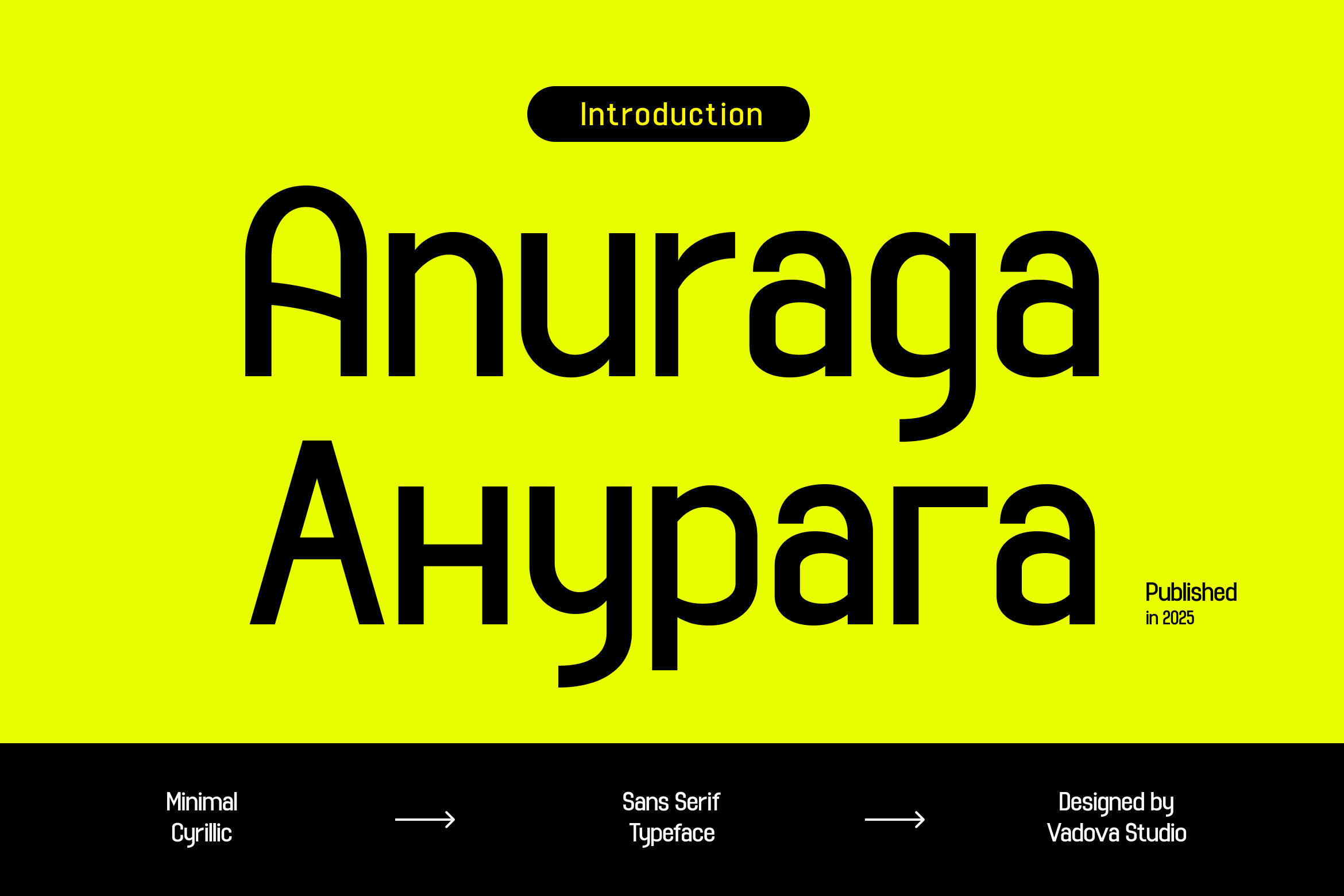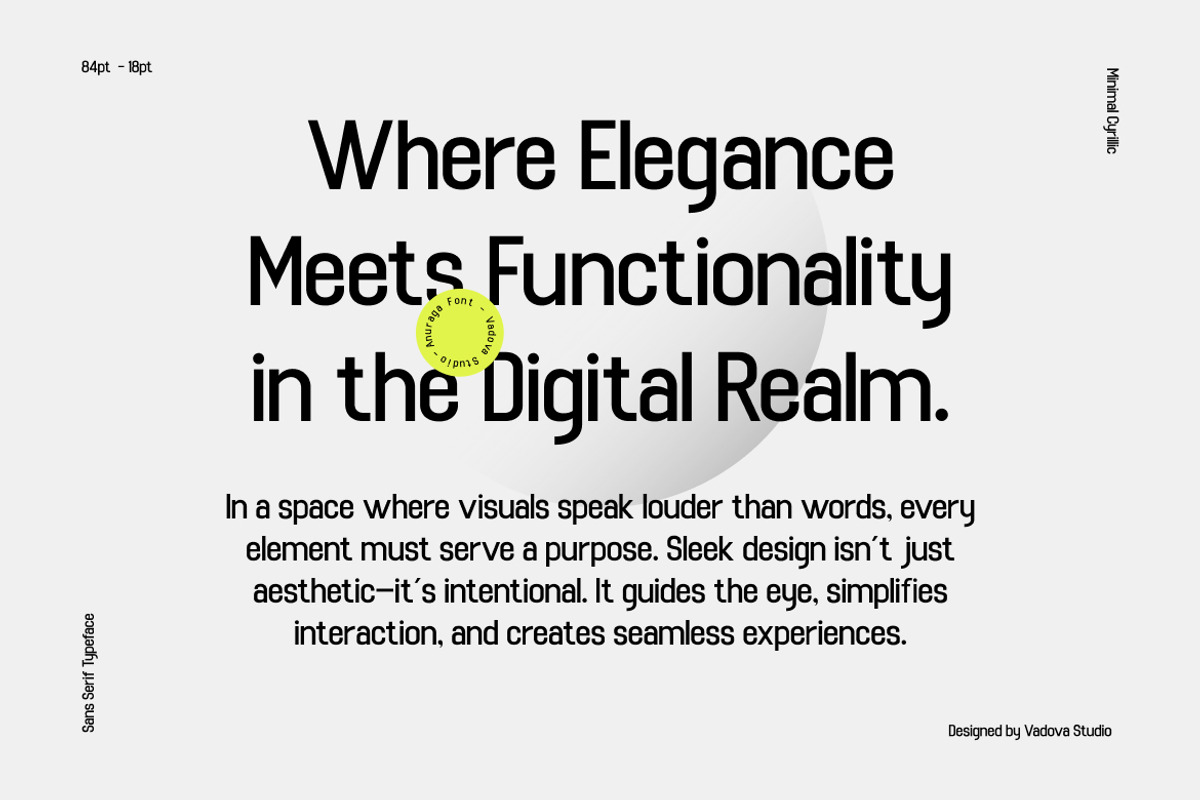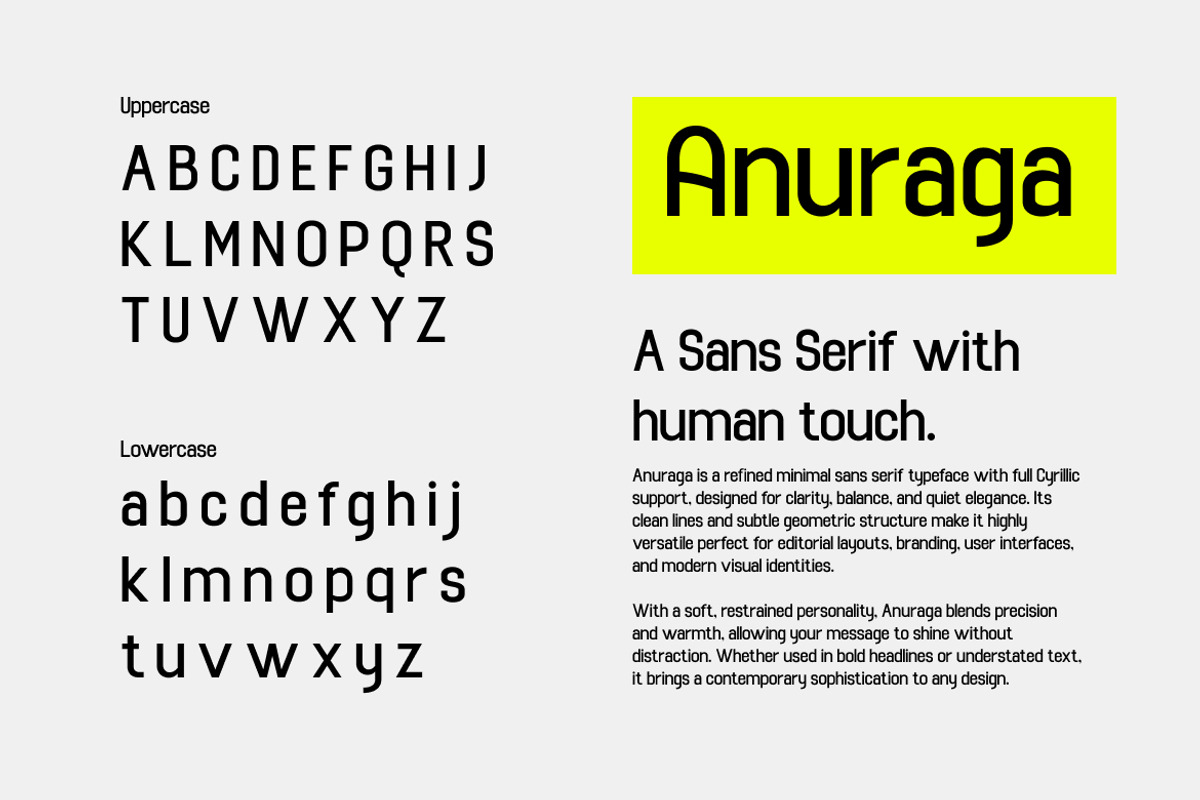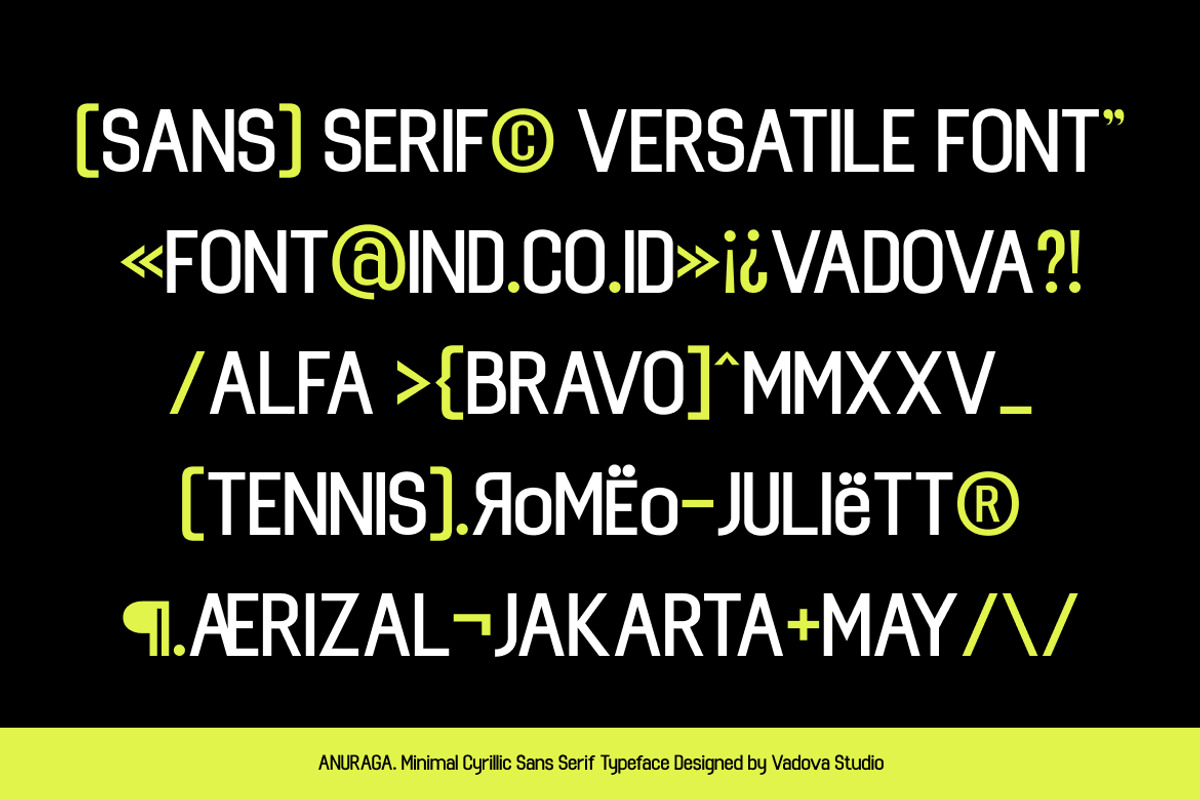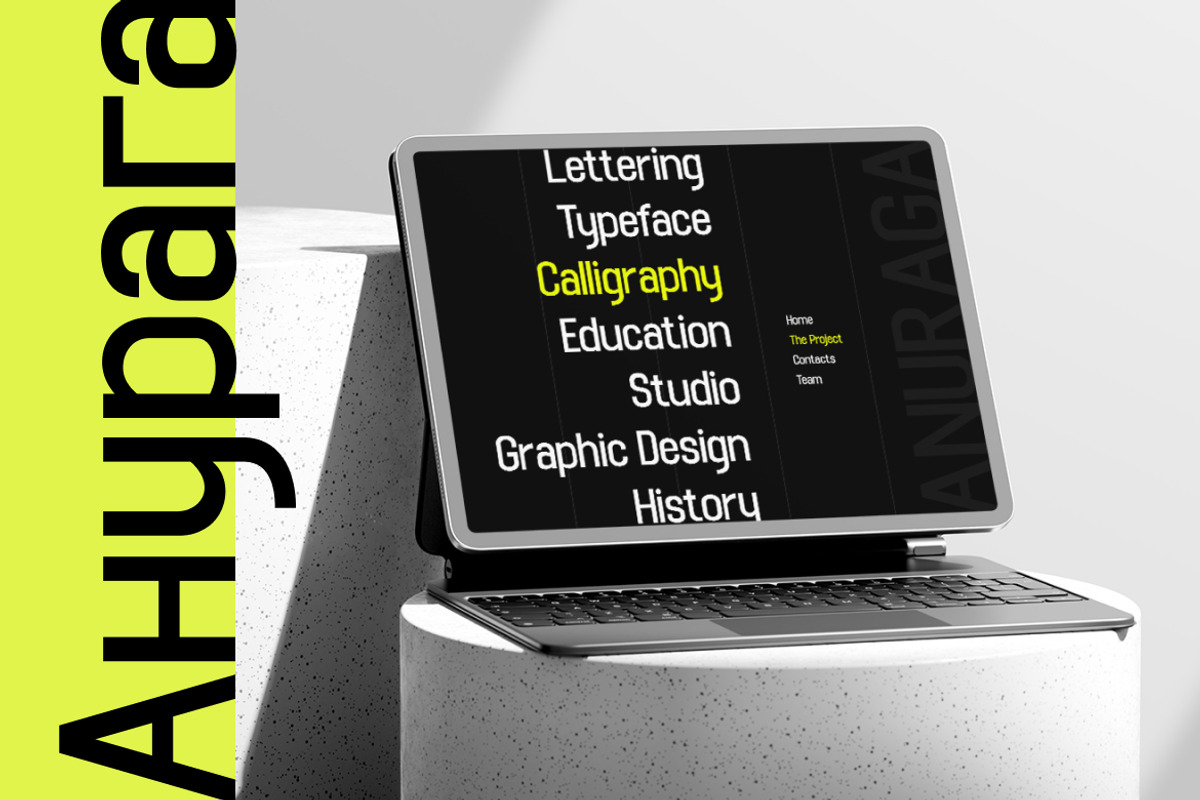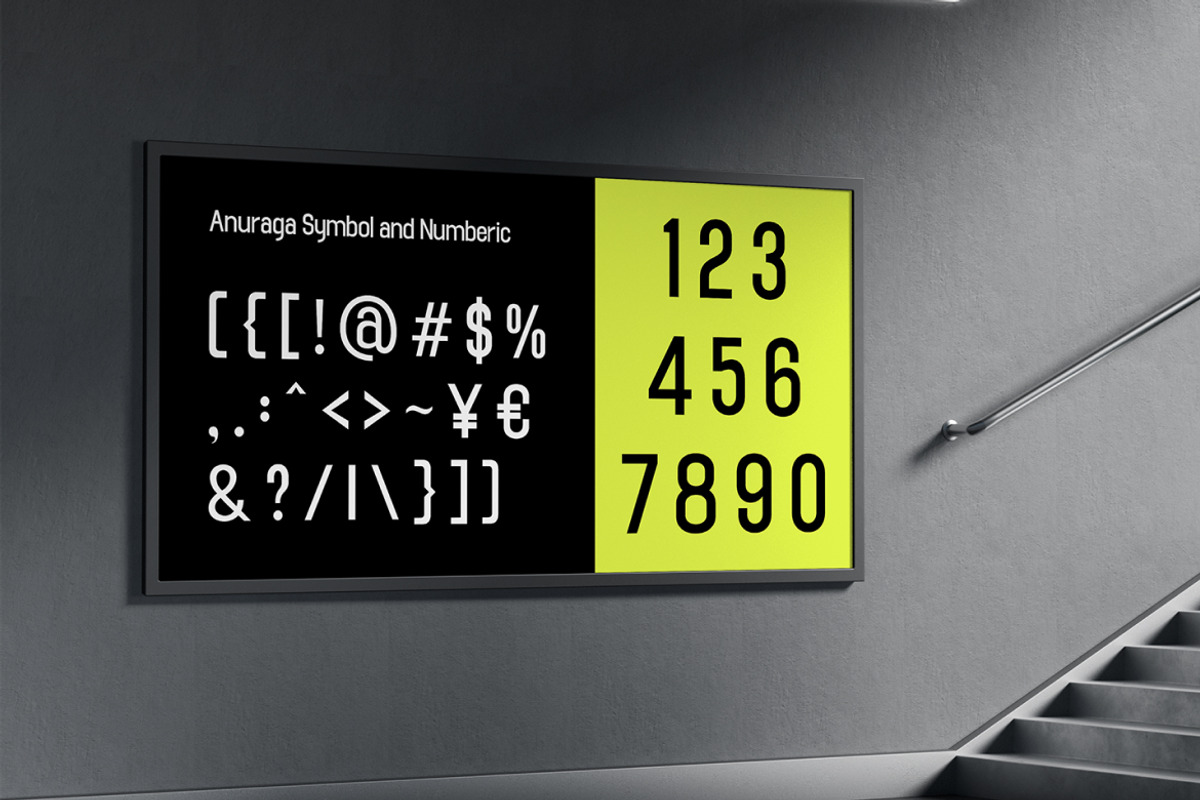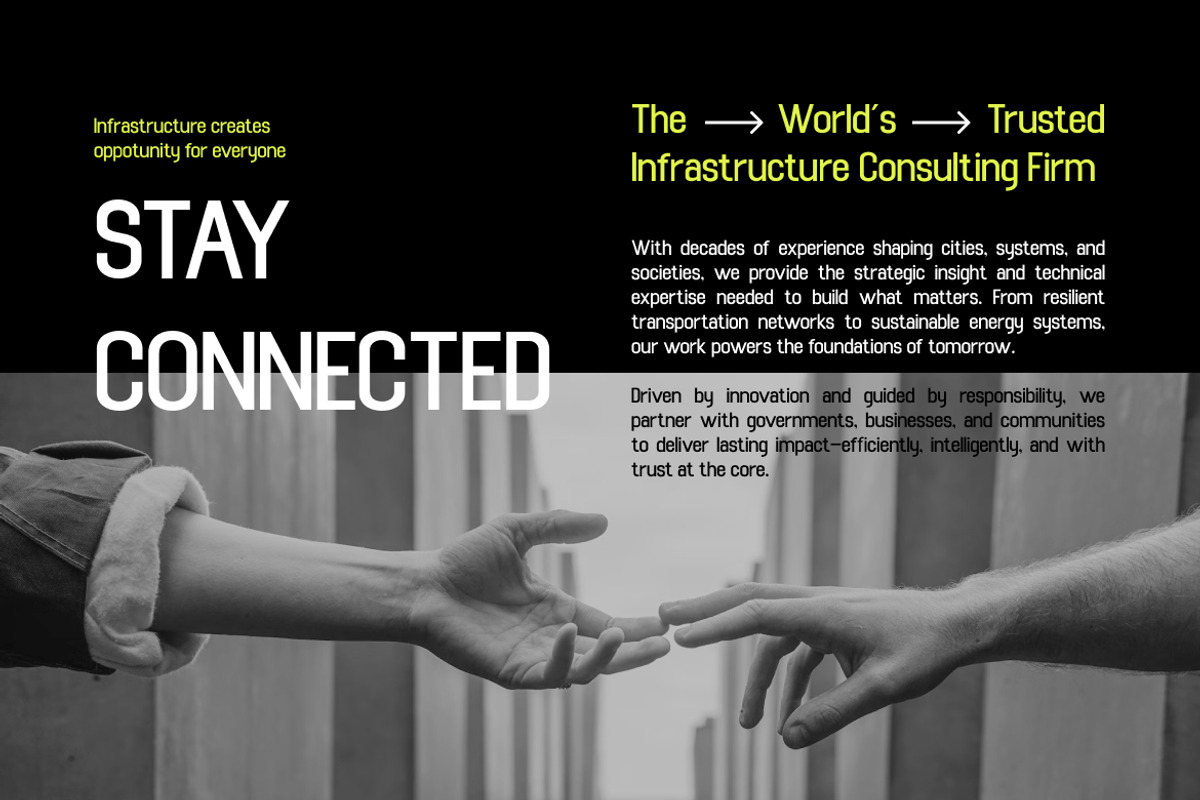
Anuraga Cyrillic Sans Serif Font
Anuraga is a modern sans serif typeface that artfully balances minimalism with a subtle humanistic warmth. Designed with clarity and versatility in mind, it draws inspiration from geometric structure but softens its rigidity with gentle curves and refined spacing. Each letterform is crafted with precision, offering a visual rhythm that feels both controlled and approachable making it perfect for contemporary design projects where neutrality and personality must coexist.
The character shapes of Anuraga reflect a carefully measured construction. With a medium contrast and clean terminals, the font maintains strong legibility while still feeling distinctive. Rounded counters and smooth transitions between strokes provide a fluid readability, particularly effective in digital interfaces and editorial layouts. The uppercase forms are assertive and confident, while the lowercase set introduces subtle softness ideal for extended reading.
Technically, Anuraga is a high-functioning type system with full Latin and Cyrillic support, making it a reliable tool for global brands and multilingual content.
- Modern sans serif with soft geometric structure
- Rounded terminals for a friendly yet professional tone
- Consistent stroke width for harmonious text appearance
- Balanced proportions for versatility across headline and paragraph use
- Full set of uppercase, lowercase, numbers, and punctuation marks
- Branding kits and identity systems for modern startups and tech companies
- UI/UX design templates for apps, dashboards, and web interfaces
- Editorial templates including magazines, brochures, and reports
- Creative studio mockups, social media kits, and pitch decks
- Product packaging, software design, and minimal logo projects
- Full multilingual support including Latin and Cyrillic scripts
- Designed for both print and digital clarity at all sizes
- Optimized kerning and spacing for professional-grade typography